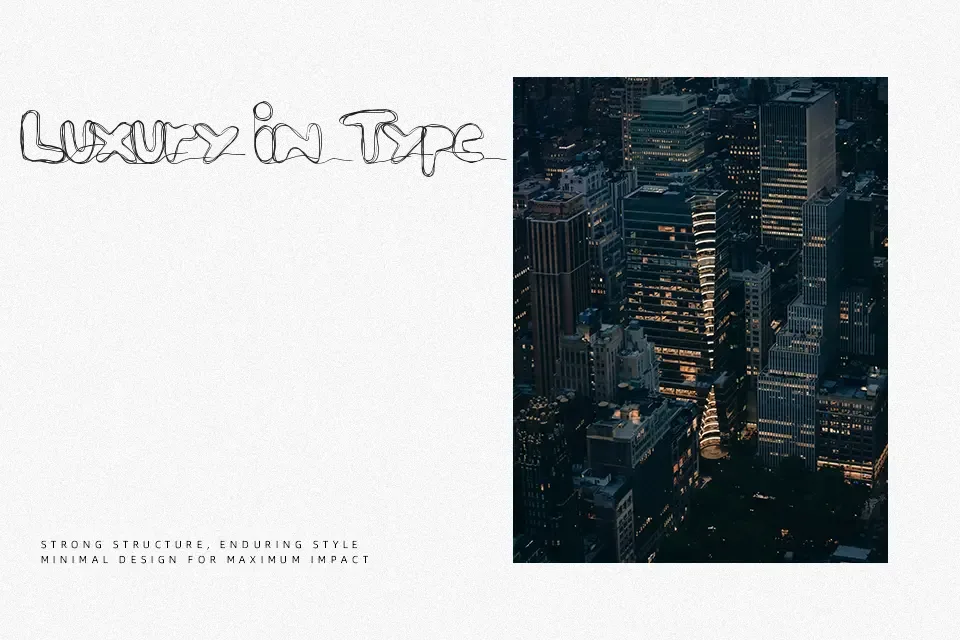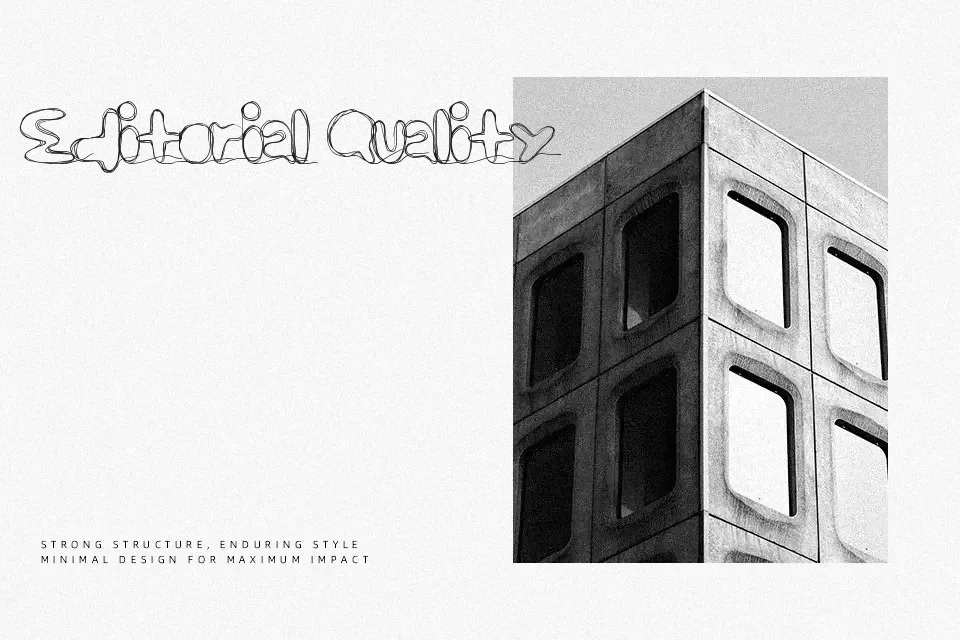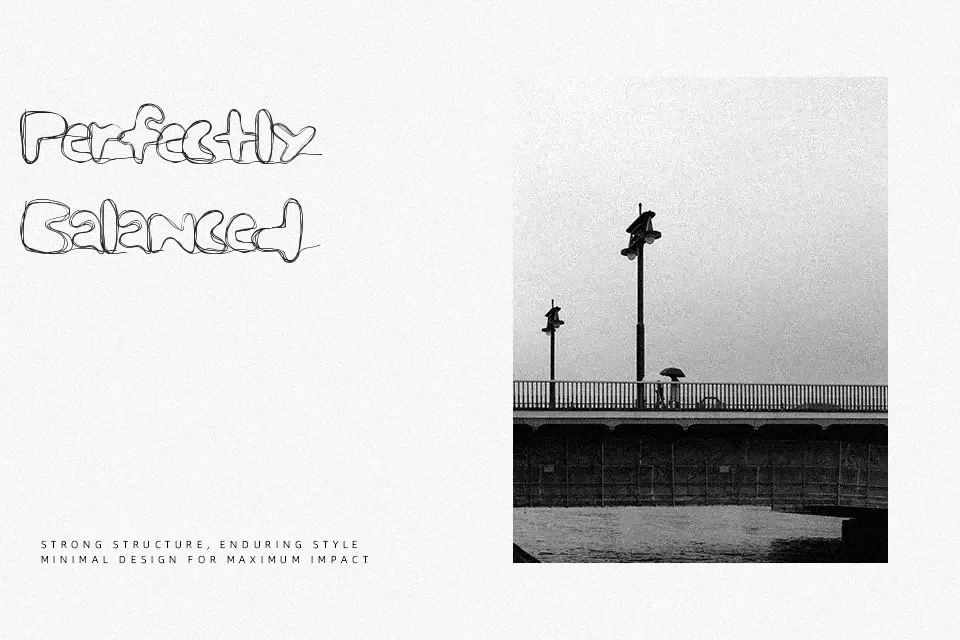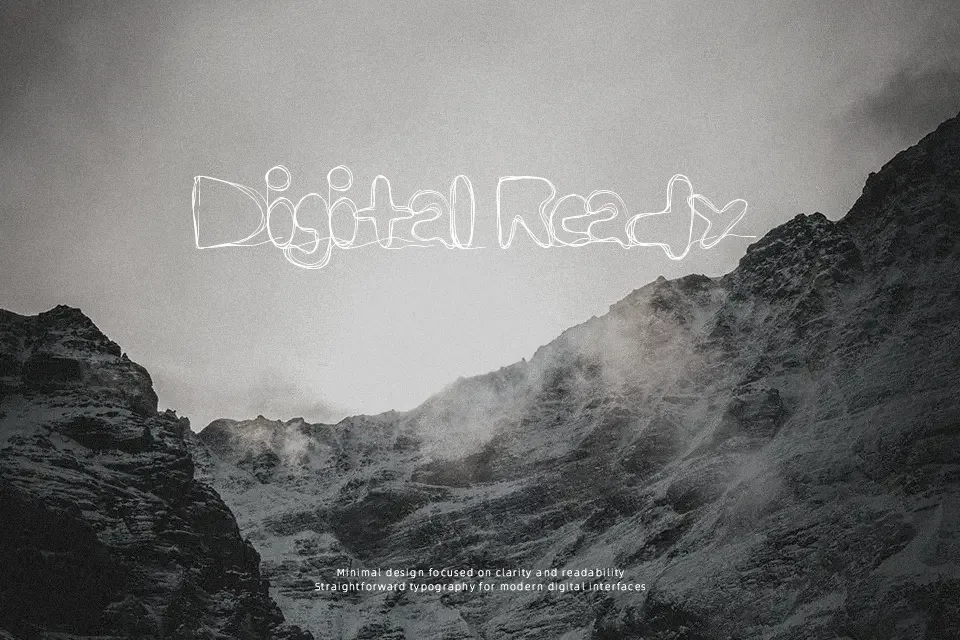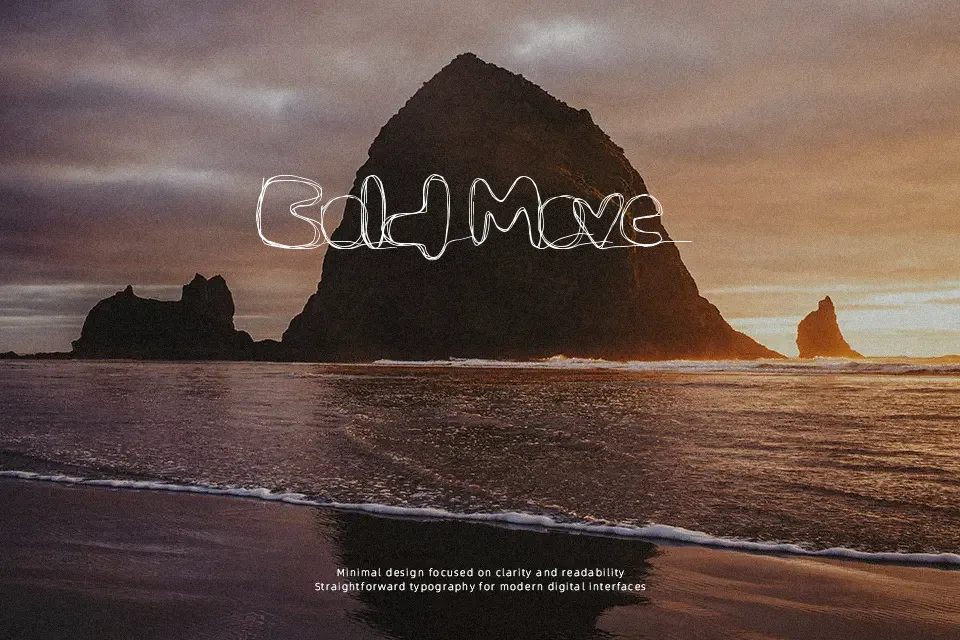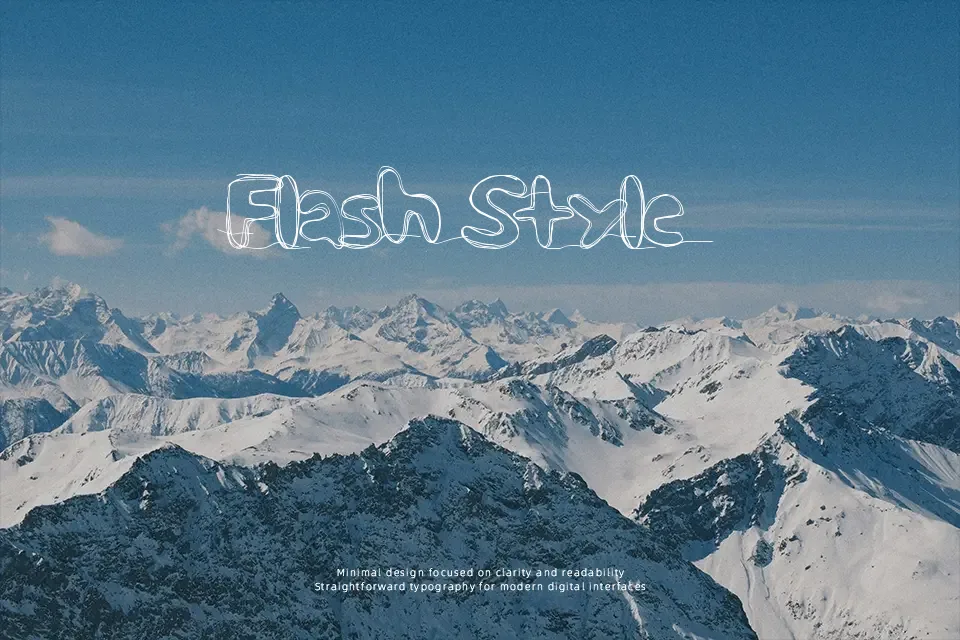
Strungout Font
Characterized by tangled cord-like outlines, Strungout Font brings a whimsical, handcrafted aesthetic to graphic layouts. Each letterform is constructed from winding, continuous strokes that mimic coiled yarn or loose threads, producing irregular internal counters and an informal rhythm. Wide character spacing helps preserve outer silhouettes, though the intricate inner linework becomes difficult to decipher when scaled down to smaller sizes. Because of its complex decorative structure, the typeface functions effectively on oversized banners, toy packaging, and themed party invitations, but it remains impractical for dense body text or compact navigational menus where rapid legibility is crucial.
Best For: toy packaging, themed party invitations, oversized event banners, children book headlines
Not Ideal For: dense body paragraphs, mobile interface labels, corporate legal documents, spreadsheet tables
Perfect for branding, headline, and kids, with a artistic and cartoon style.